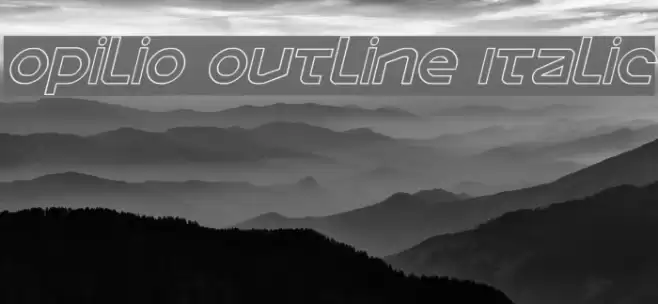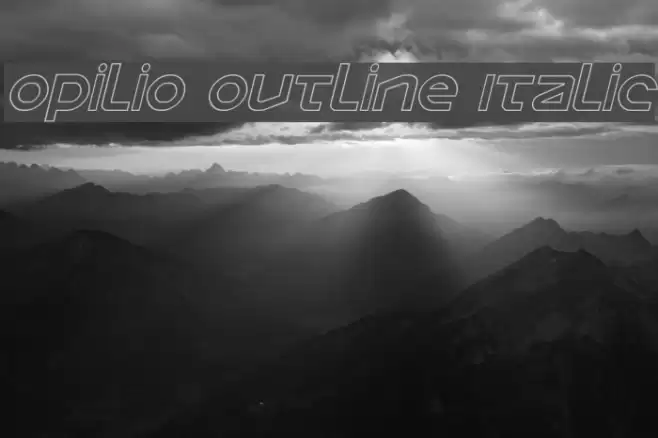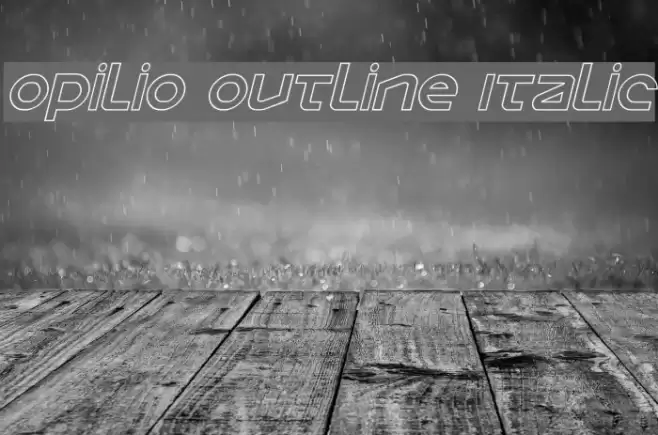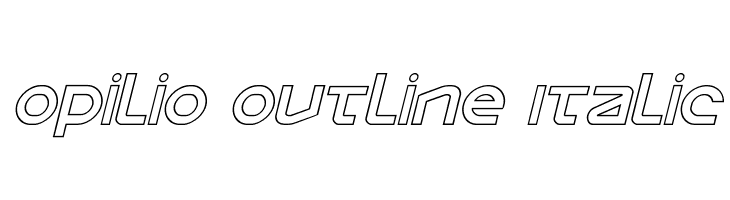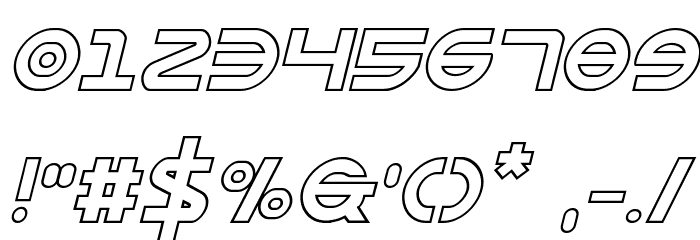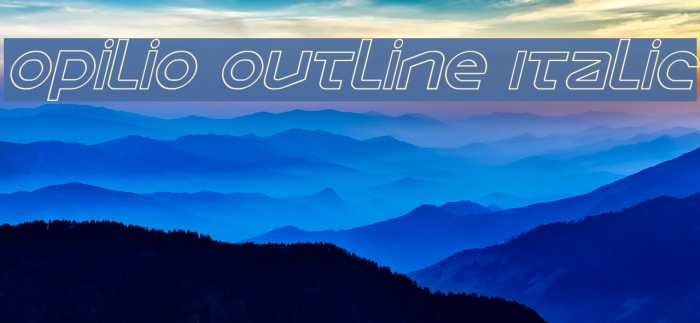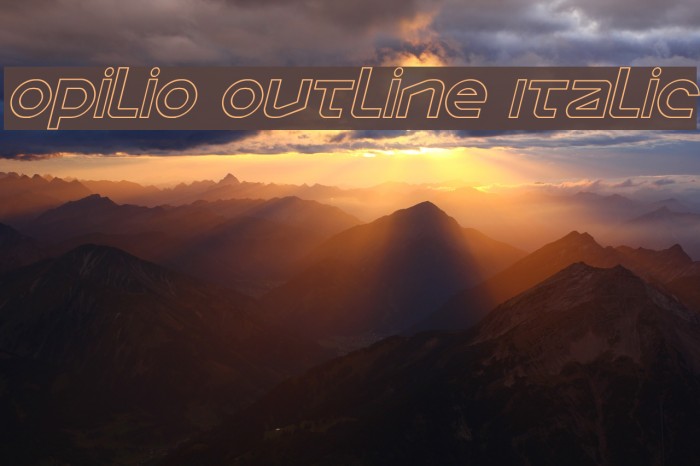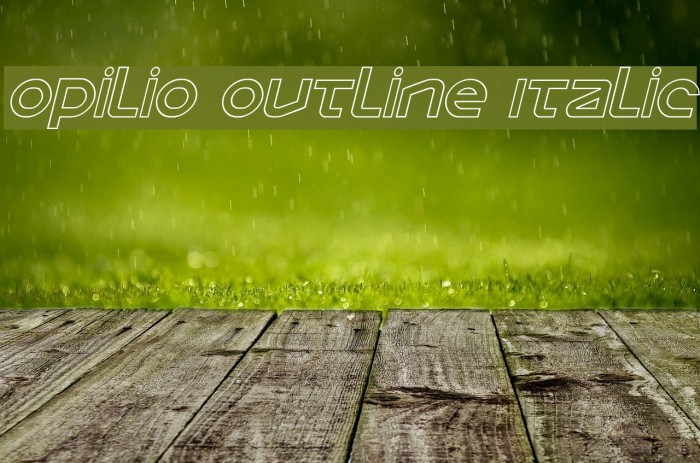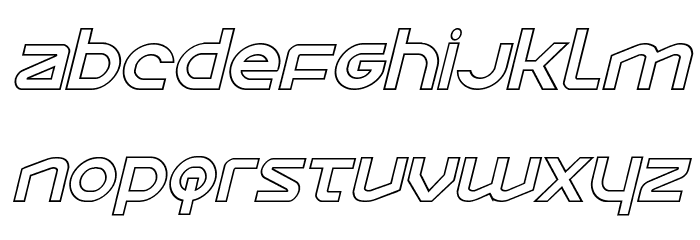
Opilio Outline Italic Font
Opilio Outline Italic Description
This font features a distinct outline style with a modern and futuristic appearance. The characters are italicized, giving them a dynamic and forward-leaning posture. Each letter is crafted with precision, maintaining a consistent stroke width throughout, which enhances its readability despite the outline design. The geometric shapes and clean lines contribute to a sleek and contemporary look, making it suitable for various creative applications. The font includes a full set of uppercase and lowercase letters, numbers, and a range of special characters, ensuring versatility in design projects.
A modern, italicized outline font with a futuristic and sleek design from Uncategorized fonts.